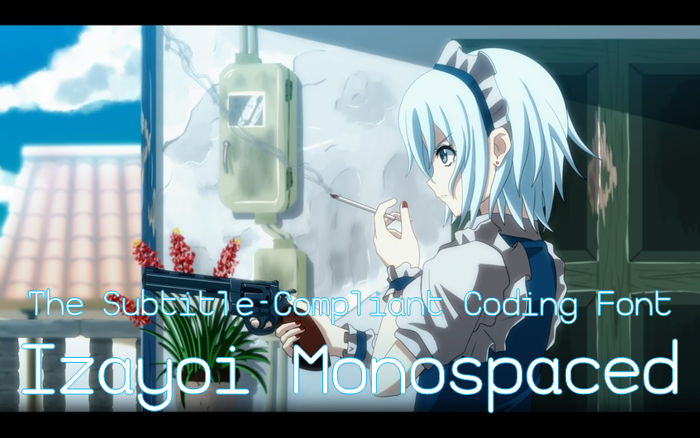
Izayoi Monospaced Font
This is just an old monospace font that I made almost 6 years ago. It can be used in subtitles, coding, terminals, digital documents and more. For more information and FAQs on this font, see readme file provided in a ZIP file.